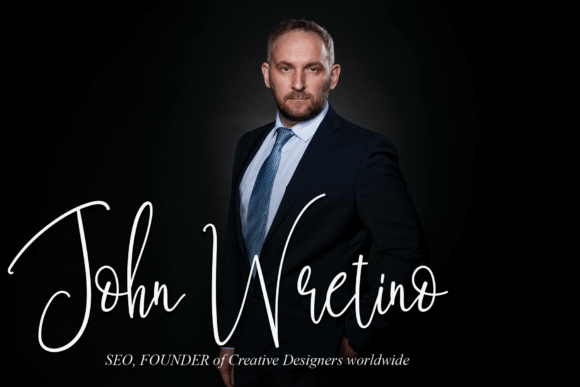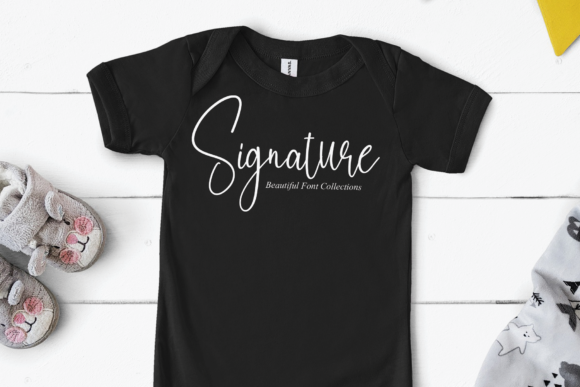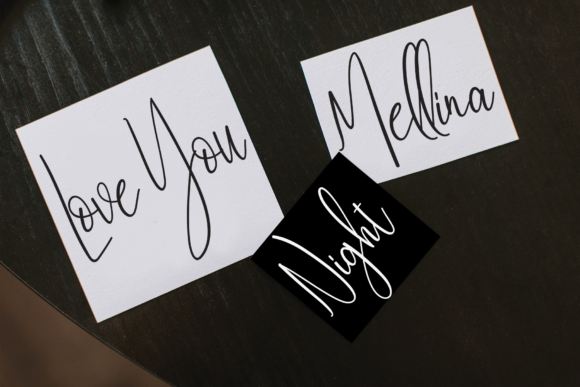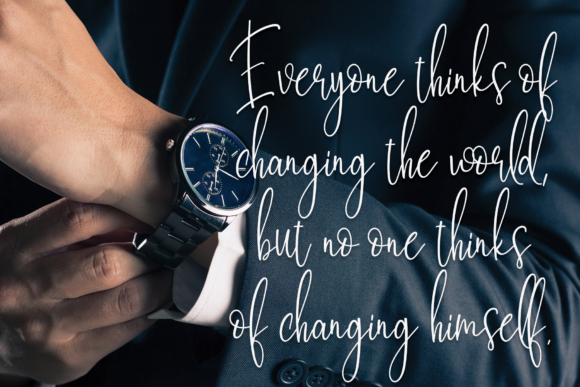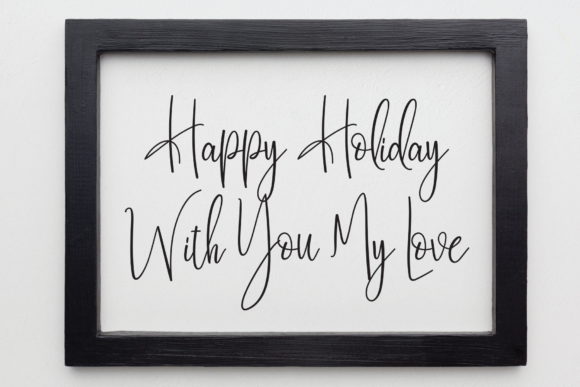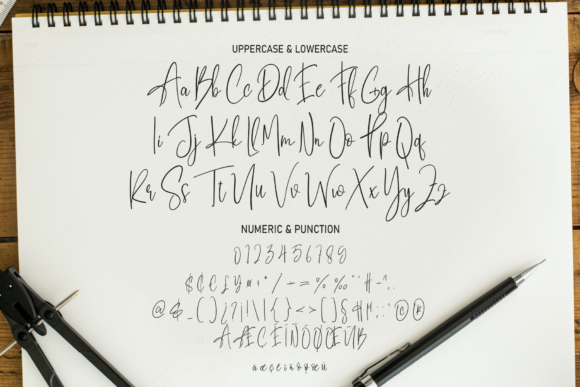
Introducing Bestie Signature Font: Elevate Your Branding with Elegance
In the world of design, fonts play a crucial role in conveying messages, expressing emotions, and creating brand identities. For designers, crafters, and entrepreneurs looking for that perfect typographic touch, Bestie Signature Font emerges as a game-changer. This slim and smooth script font is not just a typeface; it’s a statement of sophistication and elegance, designed to make your branding projects stand out.
The Essence of Bestie Signature Font
Bestie Signature Font is characterized by its sleek, slender lines and smooth curves, making it an ideal choice for projects where a touch of refinement is desired. Whether you’re working on logos, t-shirt printing, creative products, or any other branding material, this font promises to add a level of class and professionalism that’s hard to achieve with more generic typefaces.
One of the key benefits of Bestie Signature Font is its versatility. Its elegant design ensures that it looks extraordinary in a variety of contexts. From business cards to billboards, and from digital platforms to print materials, this font adapts seamlessly, always making a positive and lasting impression.
For designers and crafters, finding fonts that are both aesthetically pleasing and highly functional can be a challenge. Bestie Signature Font ticks all the right boxes. Its unique yet readable design makes it perfect for:
- Logos: Create memorable and impactful logos that speak of luxury and quality.
- T-Shirt Printing: Add a personalized touch to your apparel designs with a font that’s stylish and legible.
- Creative Products: Enhance your product designs with a sophisticated typographic element that captures attention.
- Branding Projects: Consistency in branding is key, and with Bestie Signature Font, you can maintain a uniform visual identity across all your materials.
Why Choose Bestie Signature Font?
Choosing Bestie Signature Font for your projects comes with several advantages:
- Elegance: It brings an unmatched level of elegance to your designs.
- Readability: Despite its slim design, it maintains high readability, even at smaller sizes.
- Versatility: It can be used across various platforms and design materials.
- Uniqueness: Stand out from the crowd with a font that’s distinctive and stylish.
How to Make the Most of Bestie Signature Font
To truly leverage the potential of Bestie Signature Font, consider the following tips:
- Pair it Wisely: Combine it with complementary fonts to create visual hierarchy and contrast.
- Experiment with Colors: While the font itself is sleek and simple, experimenting with different colors can help achieve different effects and moods.
- Consider Size and Weight: Play with different sizes and weights (if available) to add depth and emphasis to your design.
Bestie Signature Font is more than just a typeface; it’s a design statement. Its slim, smooth lines exude elegance and sophistication, making it an excellent choice for designers and crafters aiming to elevate their branding projects. With its versatility, readability, and unique style, Bestie Signature Font is poised to become a go-to choice for anyone looking to add a touch of class to their designs. Whether you’re working on a logo, t-shirt, or any other creative project, this font is sure to make it stand out.
So, why settle for ordinary when you can make your designs extraordinary with Bestie Signature Font? Dive into the world of elegant typography and discover how this font can transform your branding and design projects.